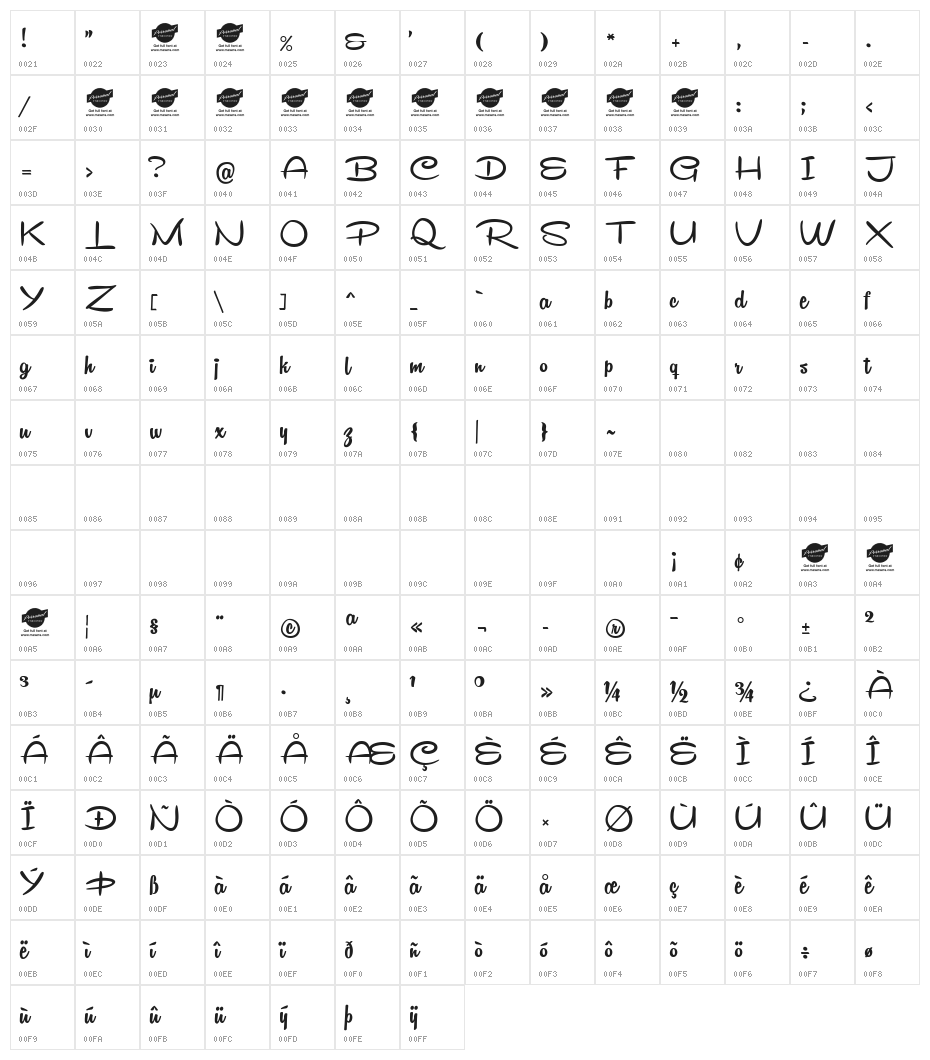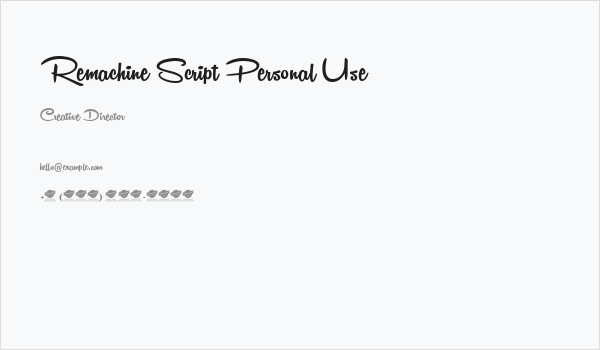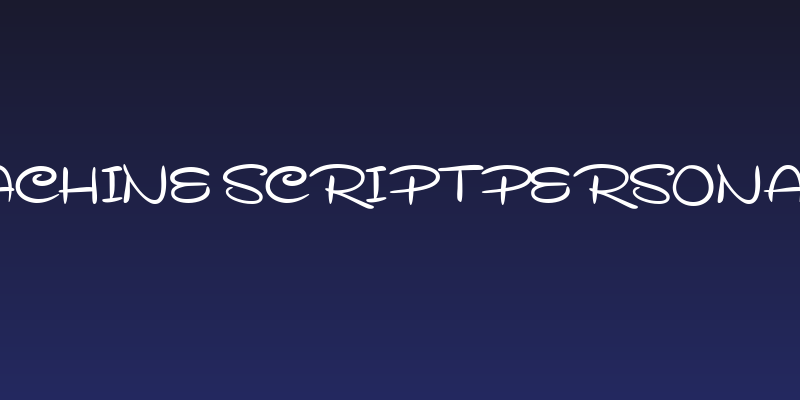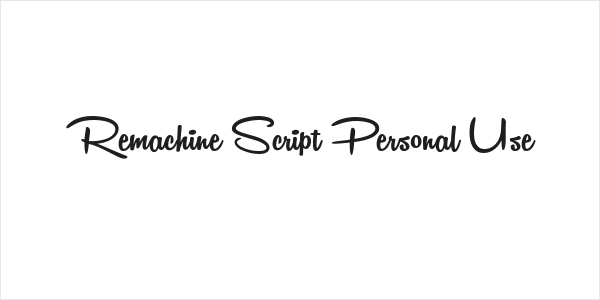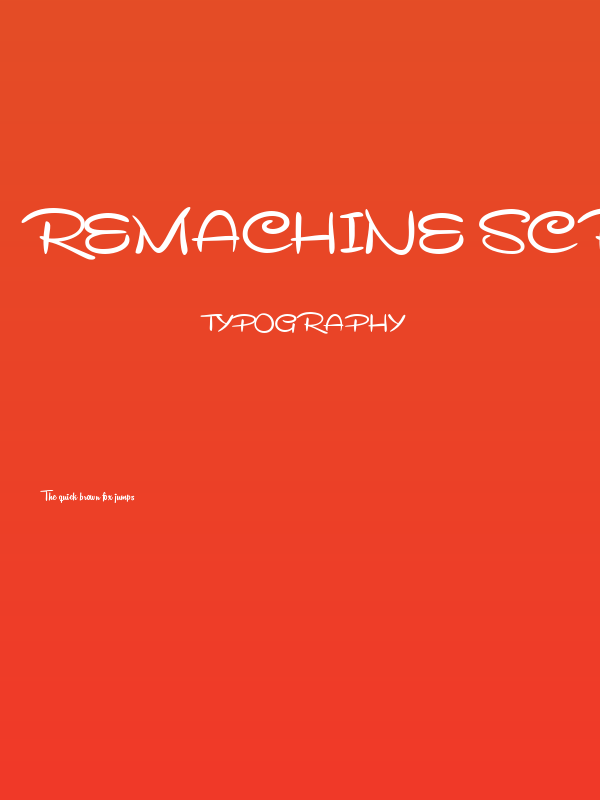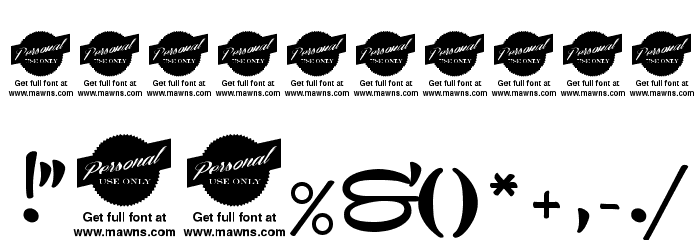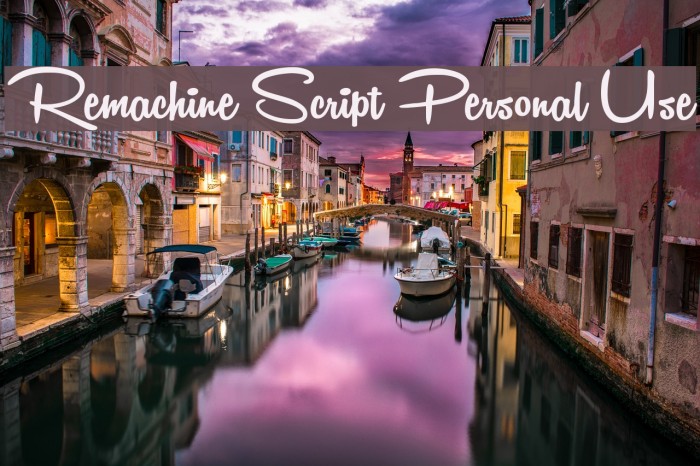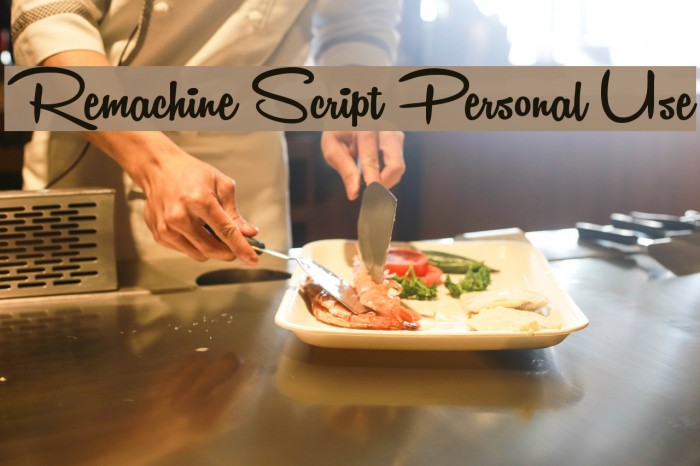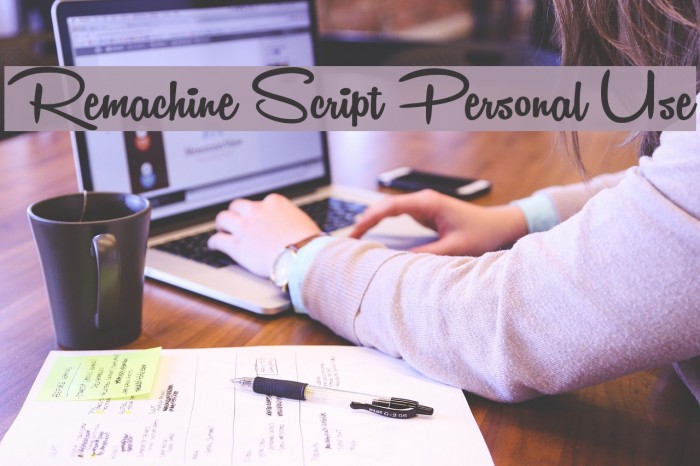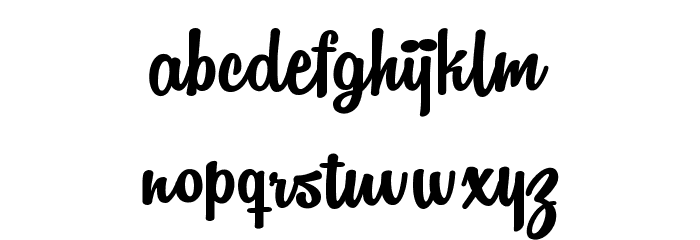
Remachine Script Personal Use Font
Remachine Script Personal Use Description
This font exudes a playful and dynamic script style, characterized by its flowing and interconnected letterforms. The uppercase letters are elegantly elongated with a slight slant, giving them a sense of movement and fluidity. The lowercase letters are bold and rounded, maintaining a consistent thickness that enhances readability while retaining a handwritten charm. The font includes a variety of special characters, each maintaining the same lively and expressive style. Its overall appearance is both modern and casual, making it suitable for projects that require a personal touch.
| Proposed Projects | Ideal for personal branding, invitations, greeting cards, and creative projects that require a personal and informal touch. |